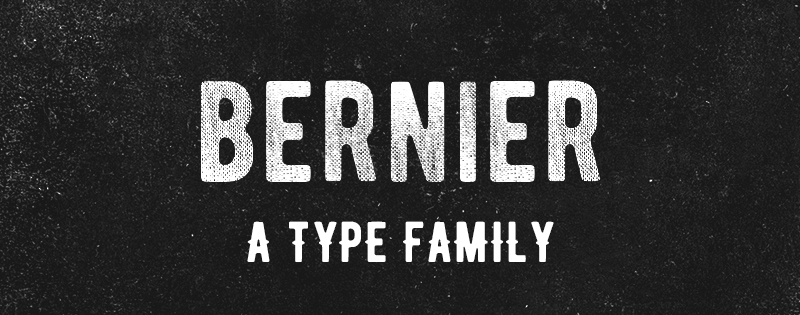
BERNIER™ is applicable for any type of graphic design.
It is perfect for vintage badge, old school style typography, and logotype.
BERNIER™ is applicable for any type of graphic design.
It is perfect for vintage badge, old school style typography, and logotype.